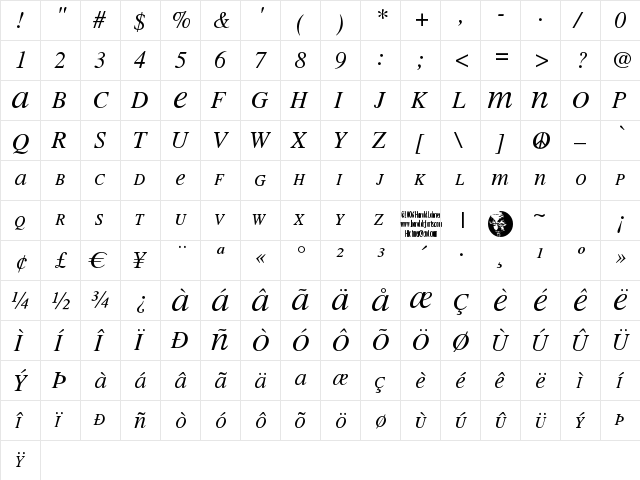
MEAN 26 Italic Regular
Design Context for MEAN 26 Italic Typeface
MEAN 26 Italic is a composed and adaptable typeface that performs quietly and consistently across a wide range of design contexts. The slanted form adds forward momentum and visual energy.